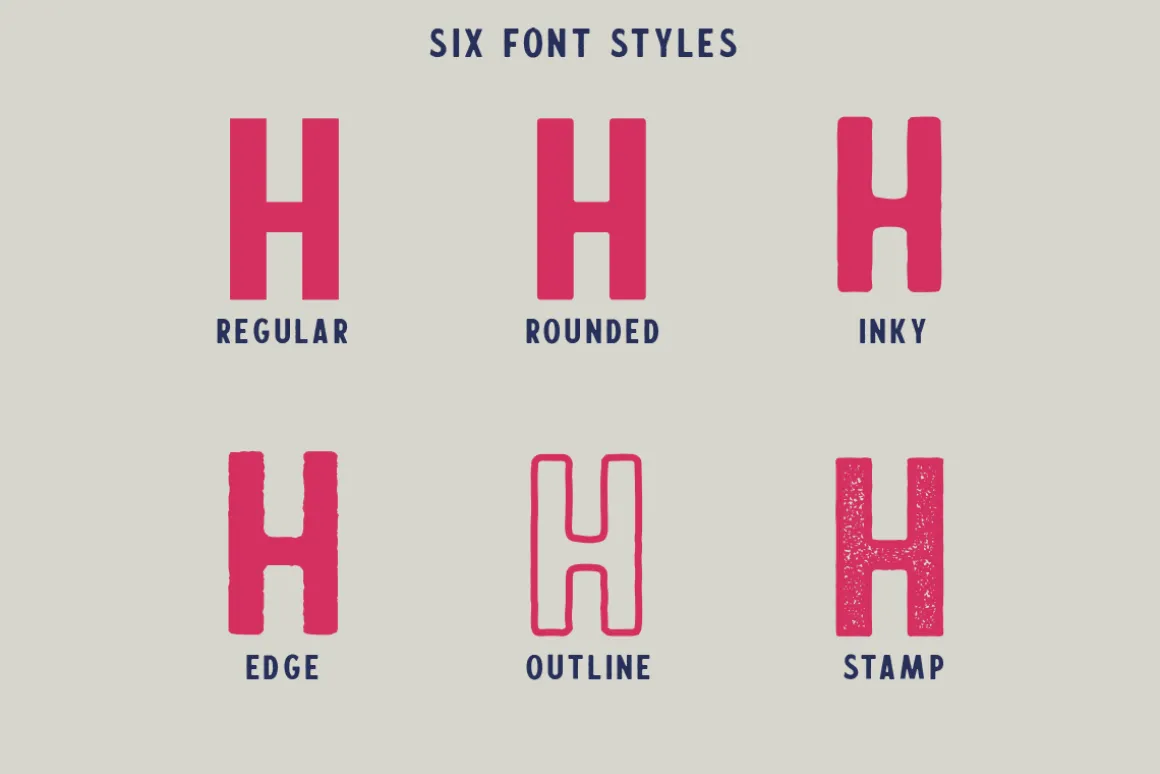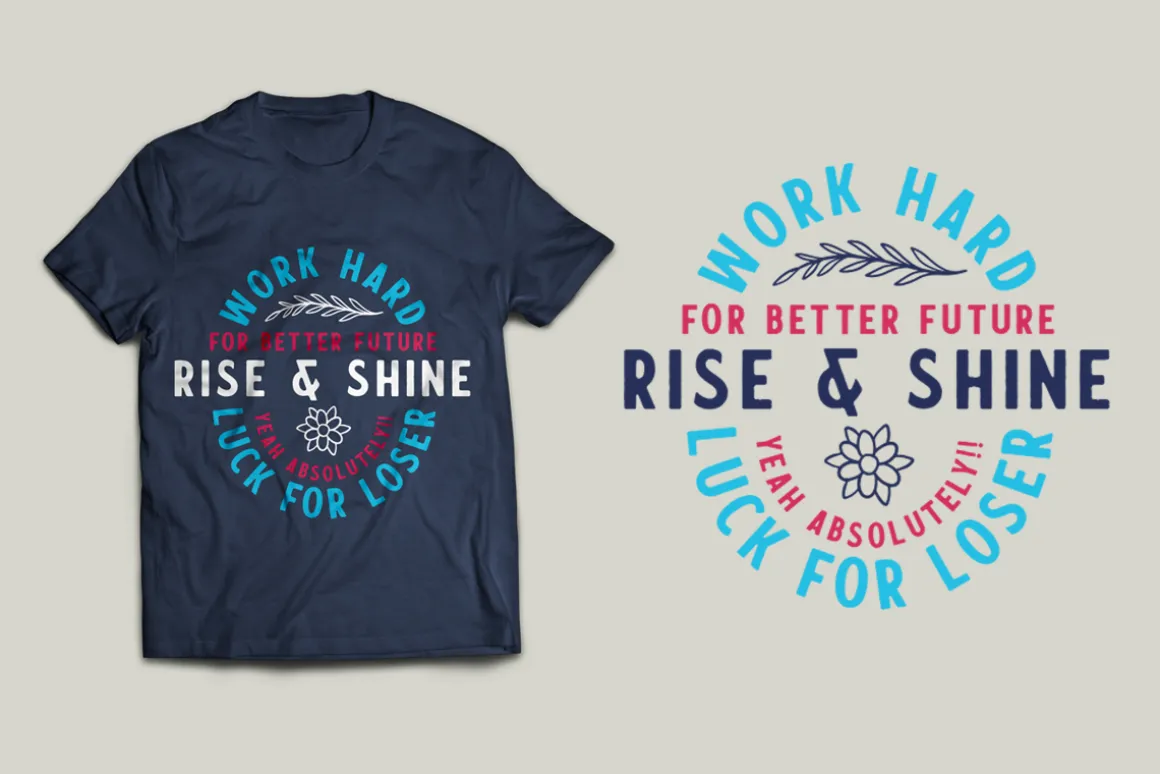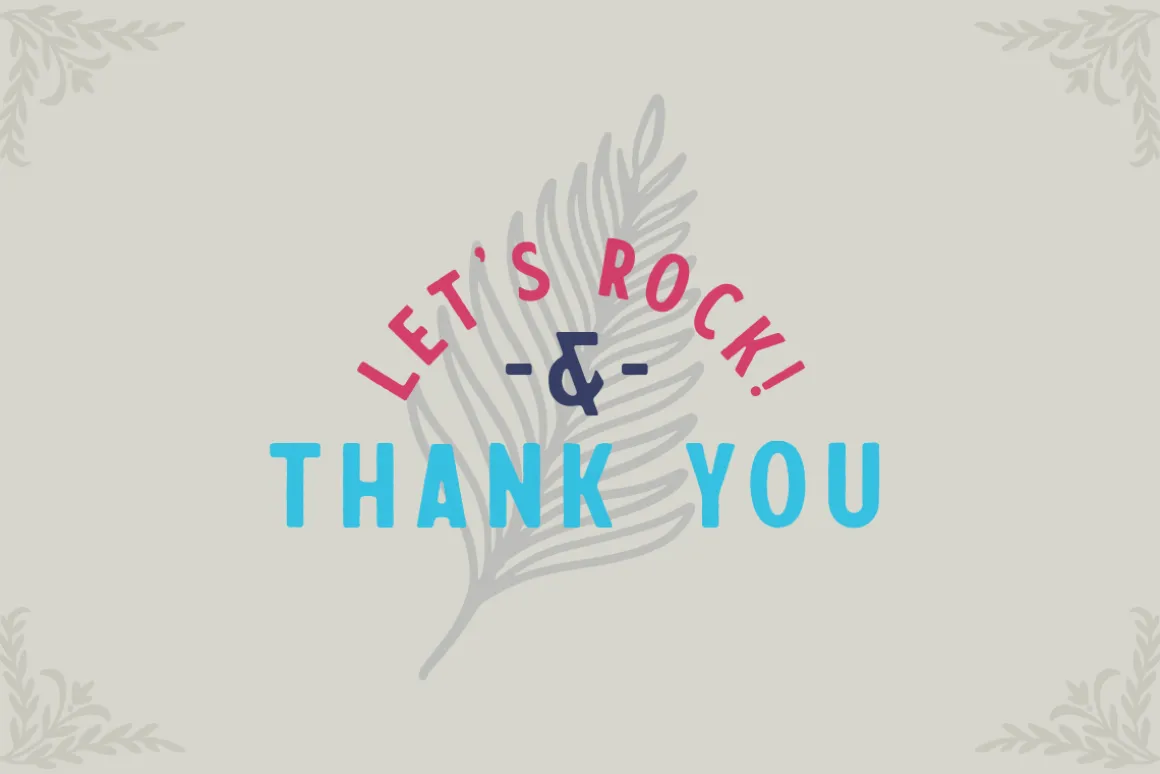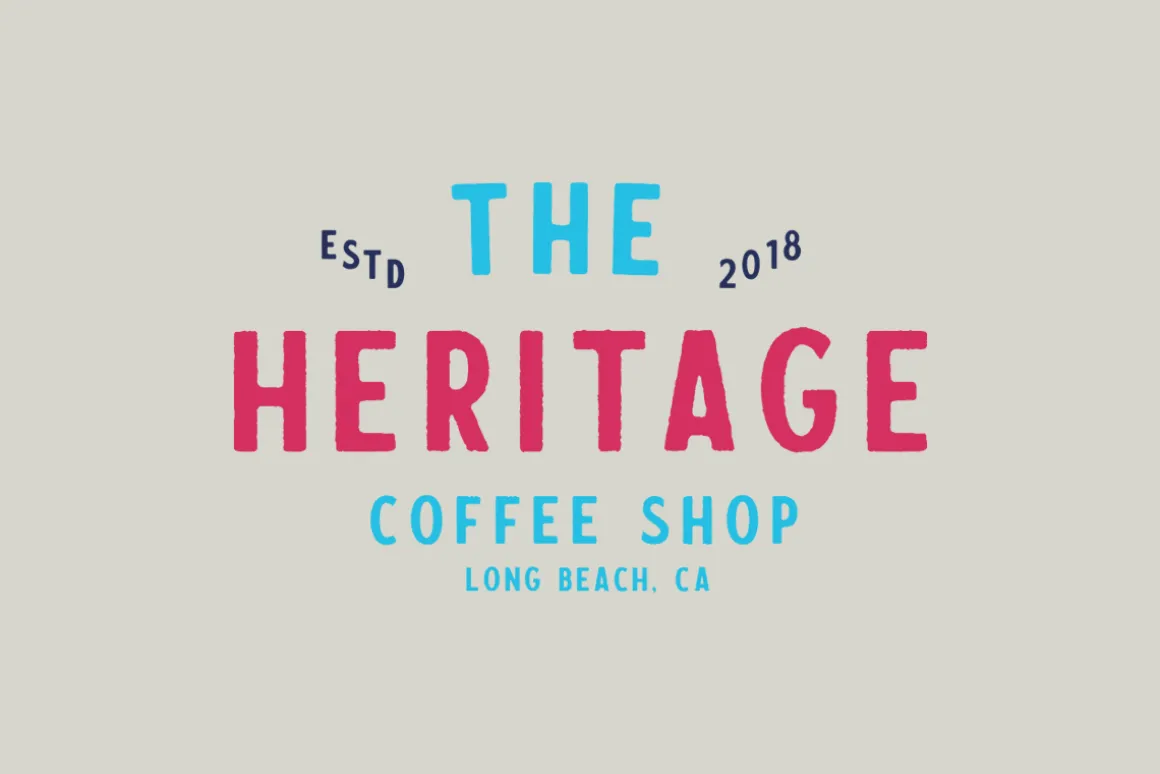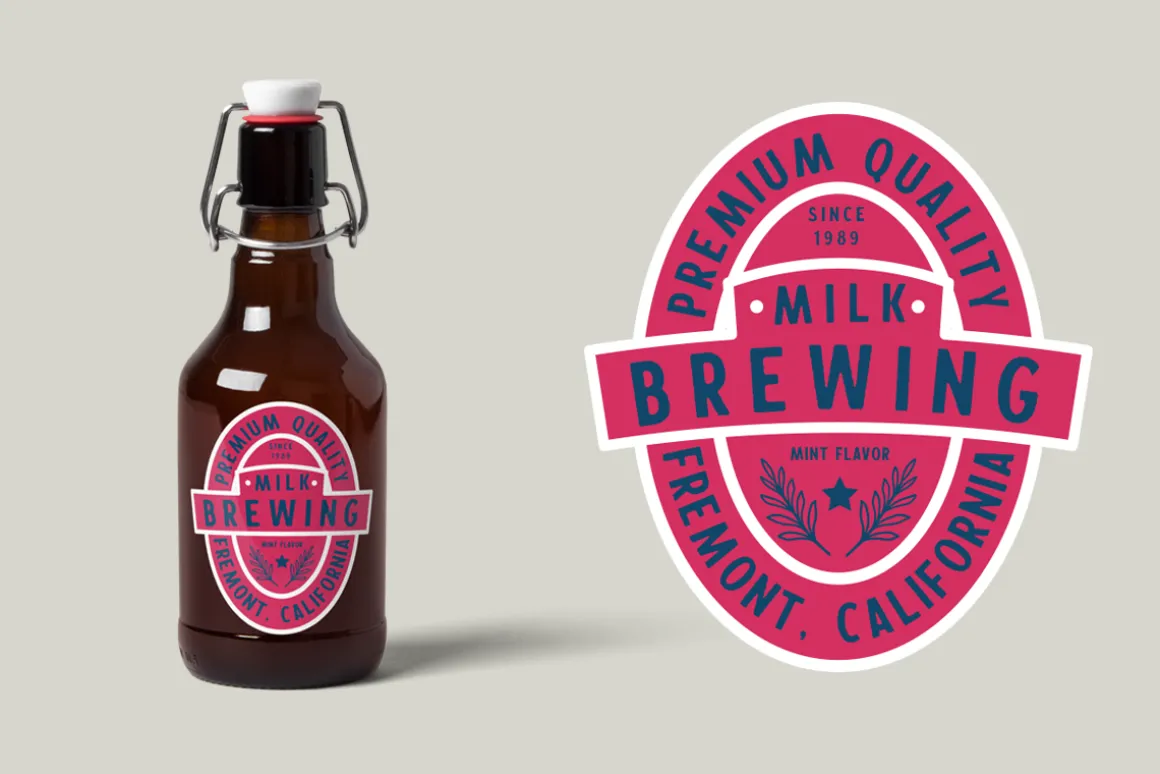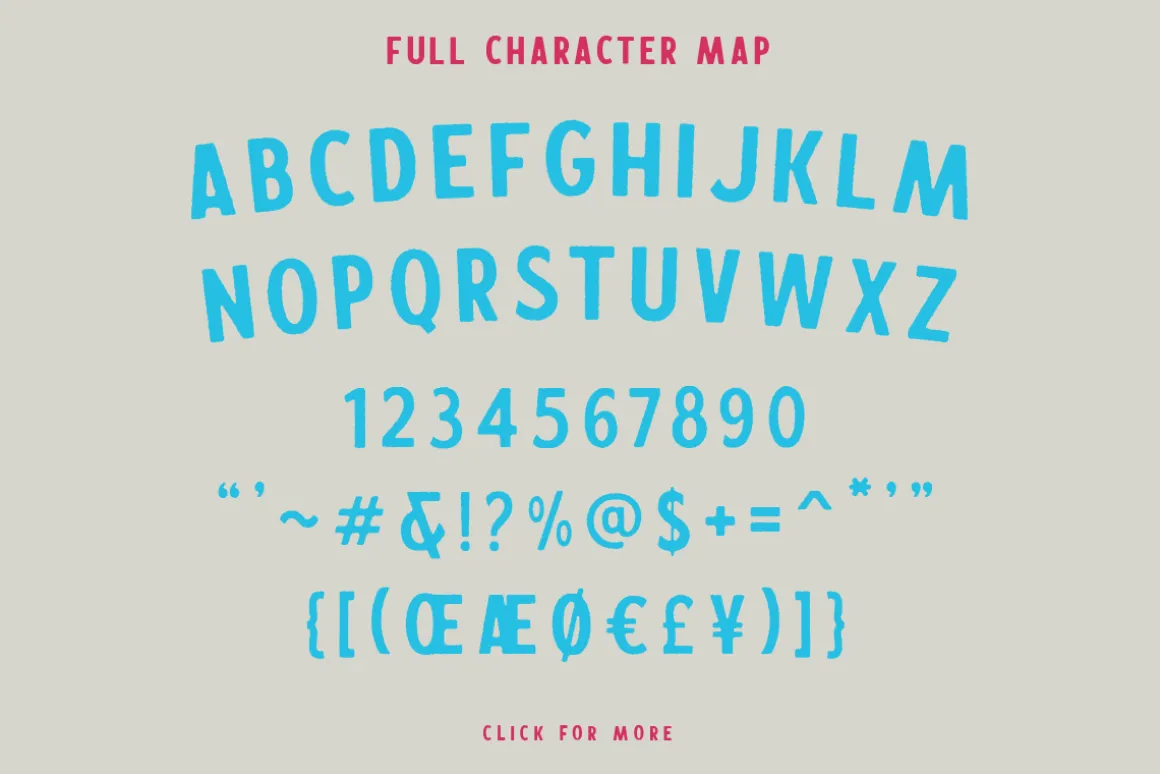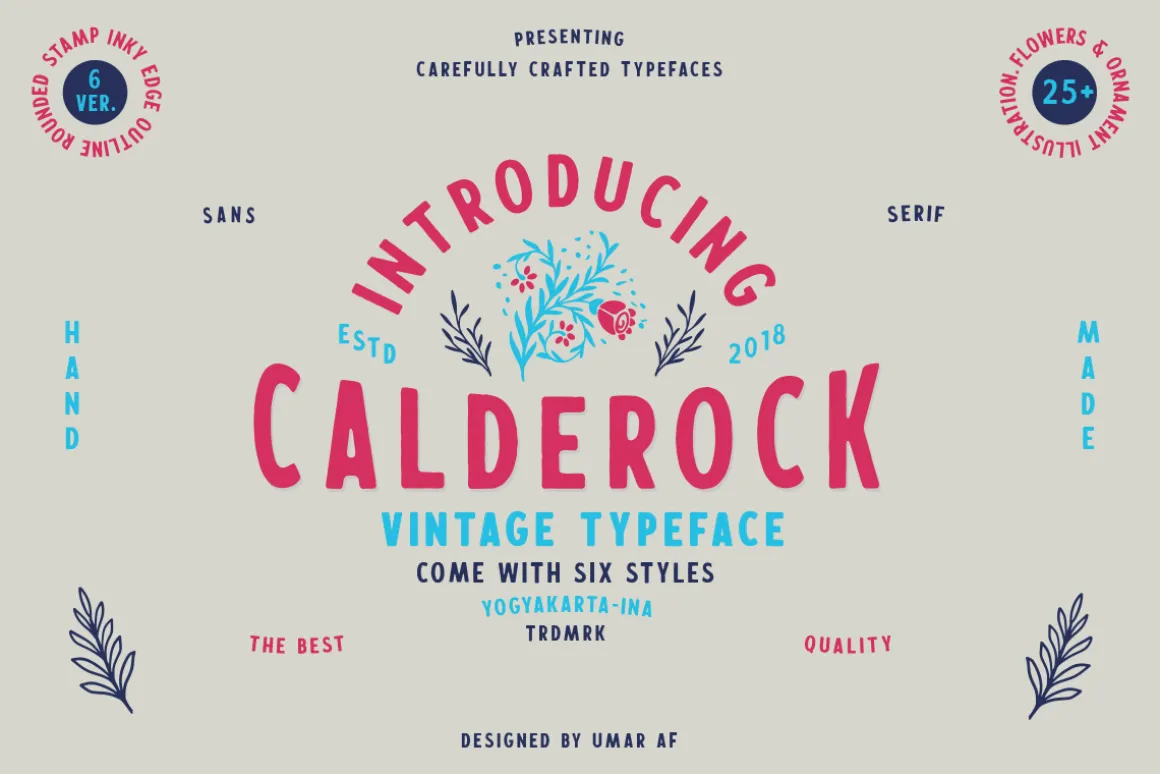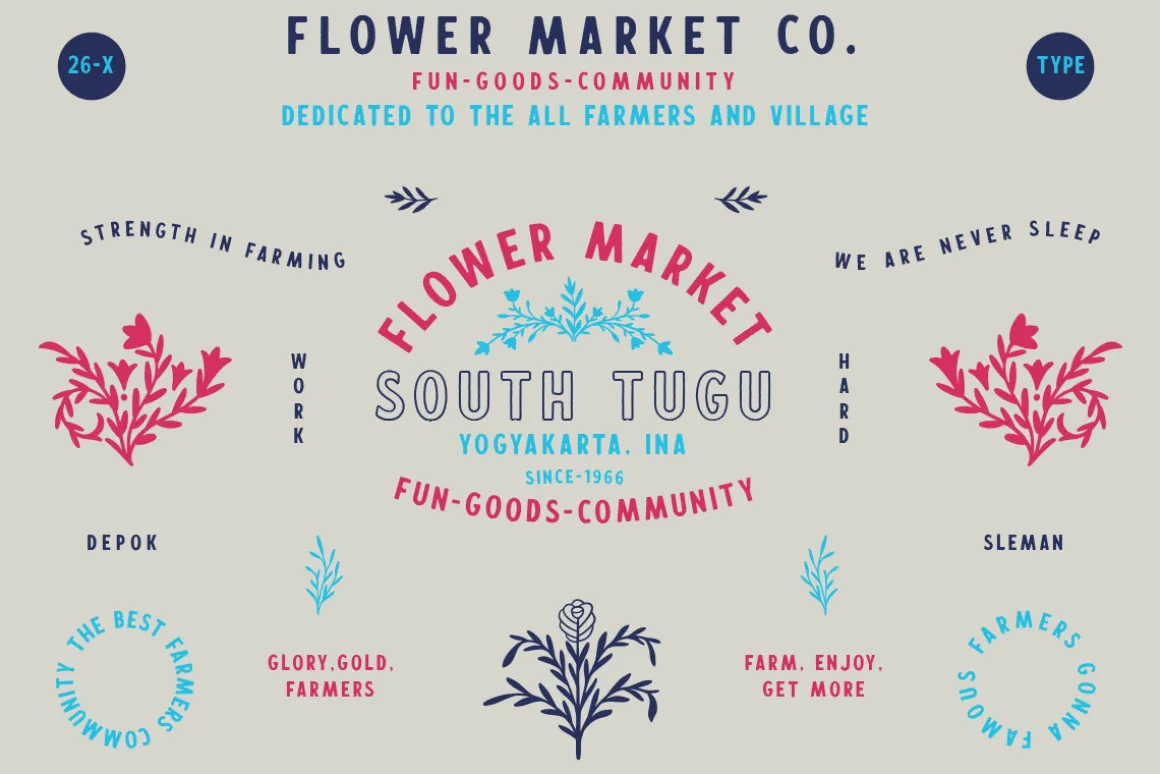
Calderock is a family sans serif font designed with carefully handcrafted. Also suitable for branding, T-shirt, Wedding Invitation, Vintage Design, Logotype, and any project. With two style make you easier to design everythings, and a illustration bonus to make better design.
- Calderock Regular
- Calderock Stamp
- Calderock Inky
- Calderock Rounded
- Calderock Edge
- Calderock Outline
- Calderock Regular Slant
- Calderock Stamp Slant
- Calderock Inky Slant
- Calderock Rounded Slant
- Calderock Edge Slant
- Calderock Outline Slant
Multilingual Support support many different languages 20+ .